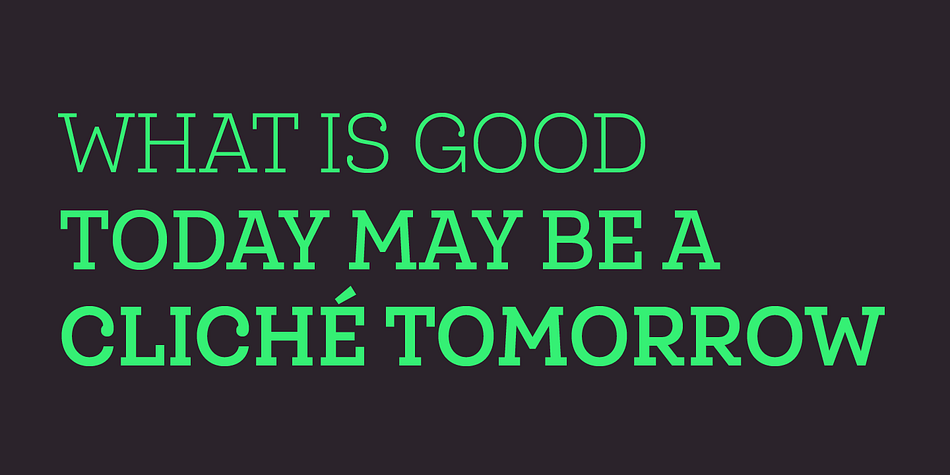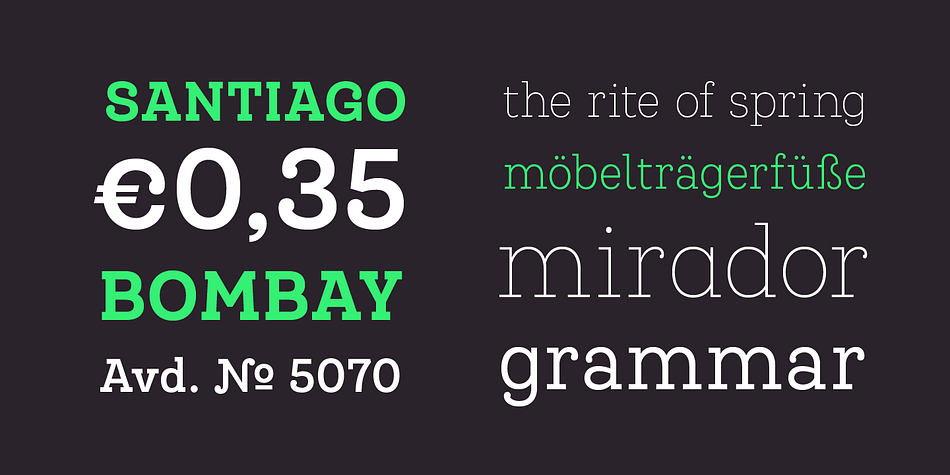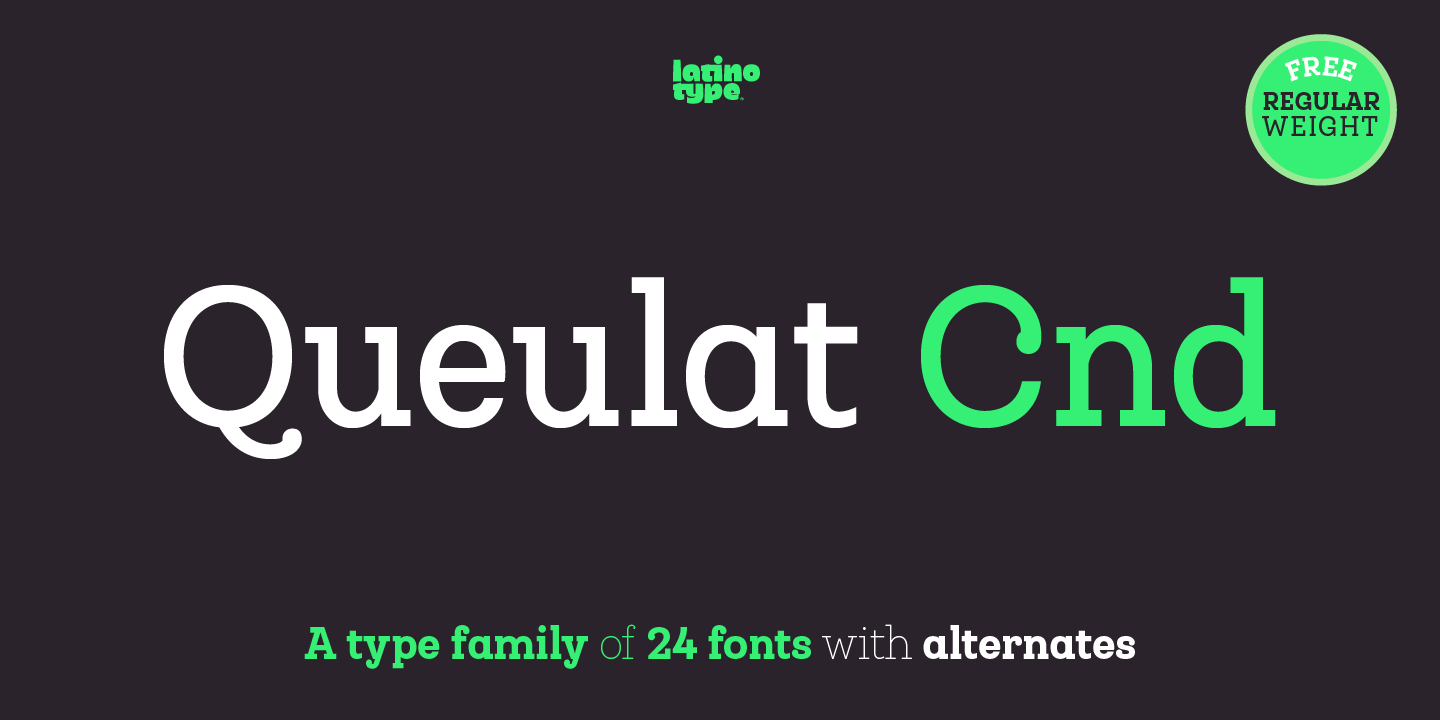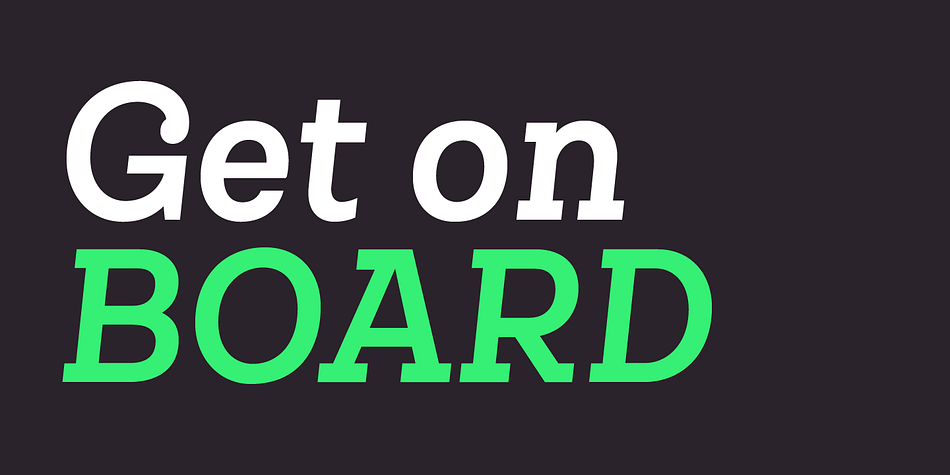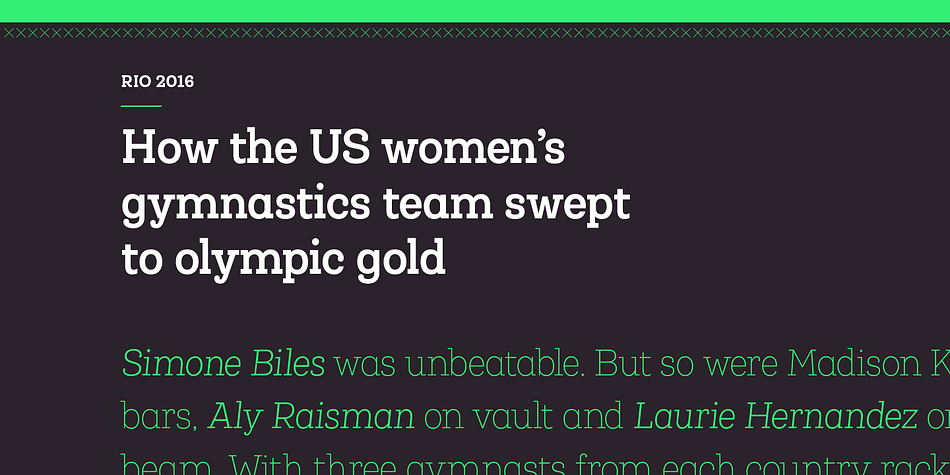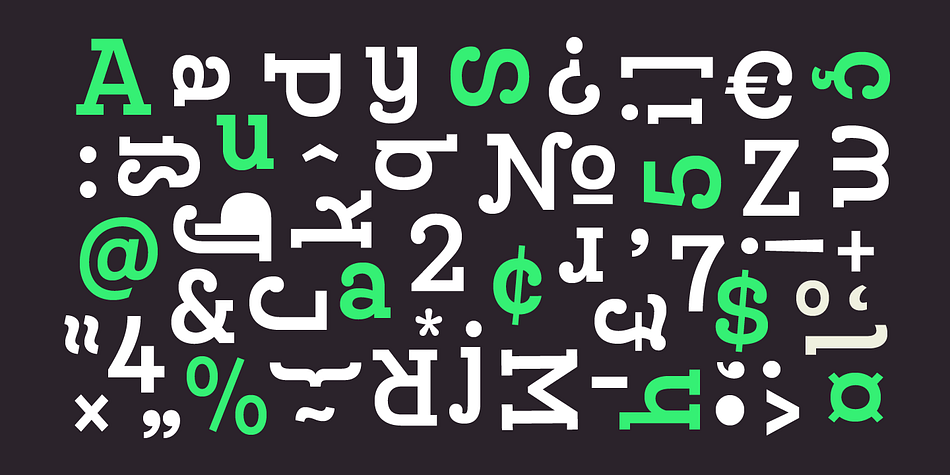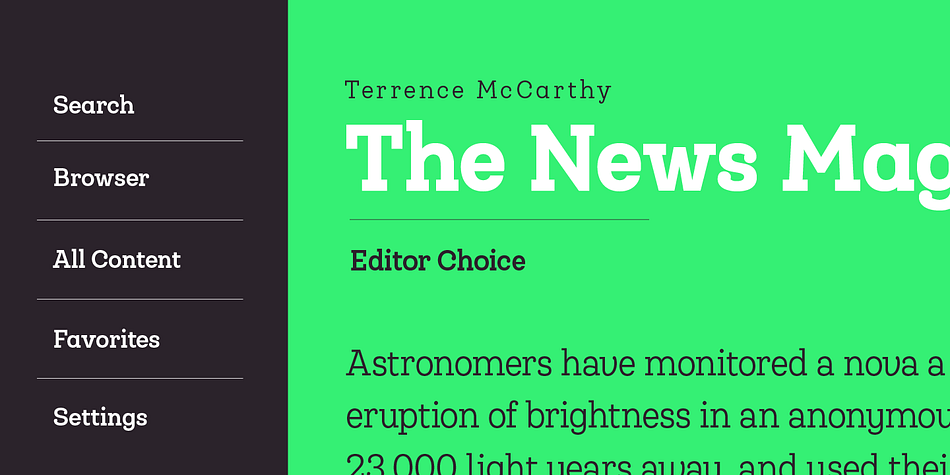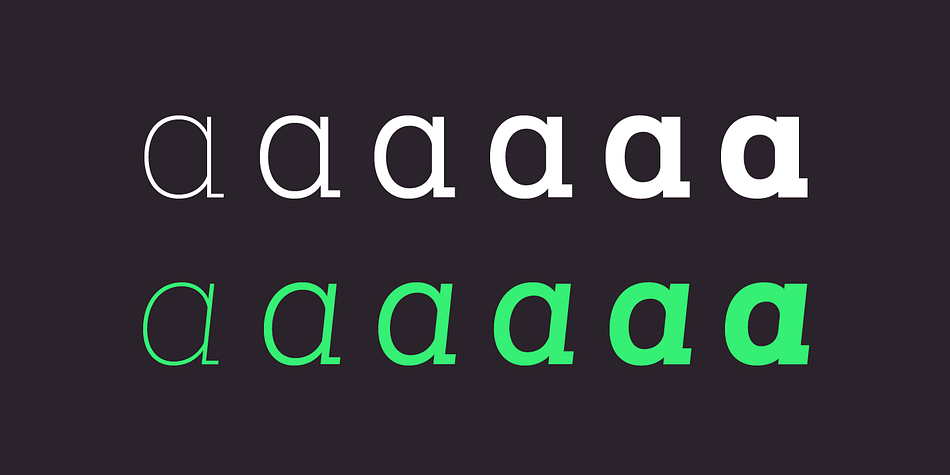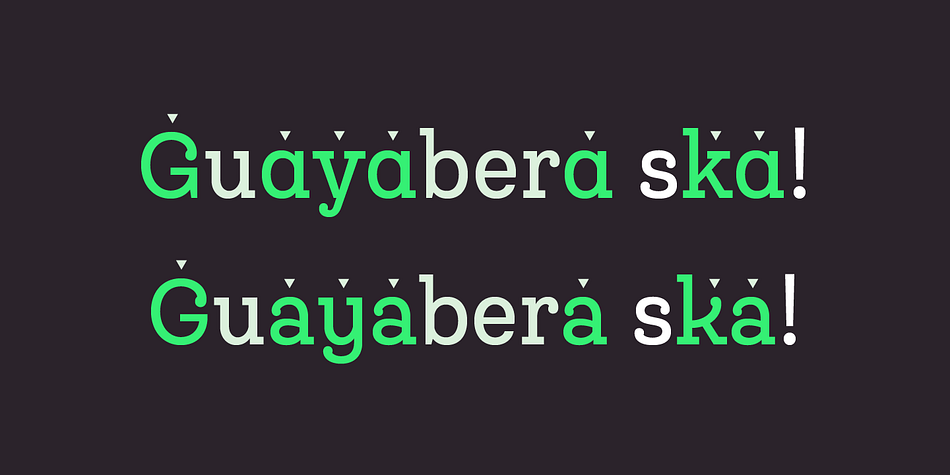
Designed by Jorge Cisterna, Queulat Condensed is a slab serif font family. This typeface has twenty-four styles and was published by Latinotype.
This font is the condensed version of Queulat, but keeping the same features as the original typeface. Queulat Cnd is a hybrid typeface that combines different styles, reflecting charm, freshness and, especially, a strong personality. Since it is a condensed font, it is well-suited for publishing and subheadings.
The font is inspired by Modern and Grotesk styles. The former is shown in some characteristic features such as teardrop terminals, which give the typeface an attractive unique look, making it an ideal choice for logotypes and labelling. The latter, with its rationality, makes Queulat Cnd a stable and strong face for headings and subheadings.
The combination of styles can be clearly seen by comparing the Regular with the Alt version. The Regular version is more simple than the Alt one. Differently, the alternative version possesses more features of the Modern style, like teardrop terminals in ‘k’ and ‘v’.